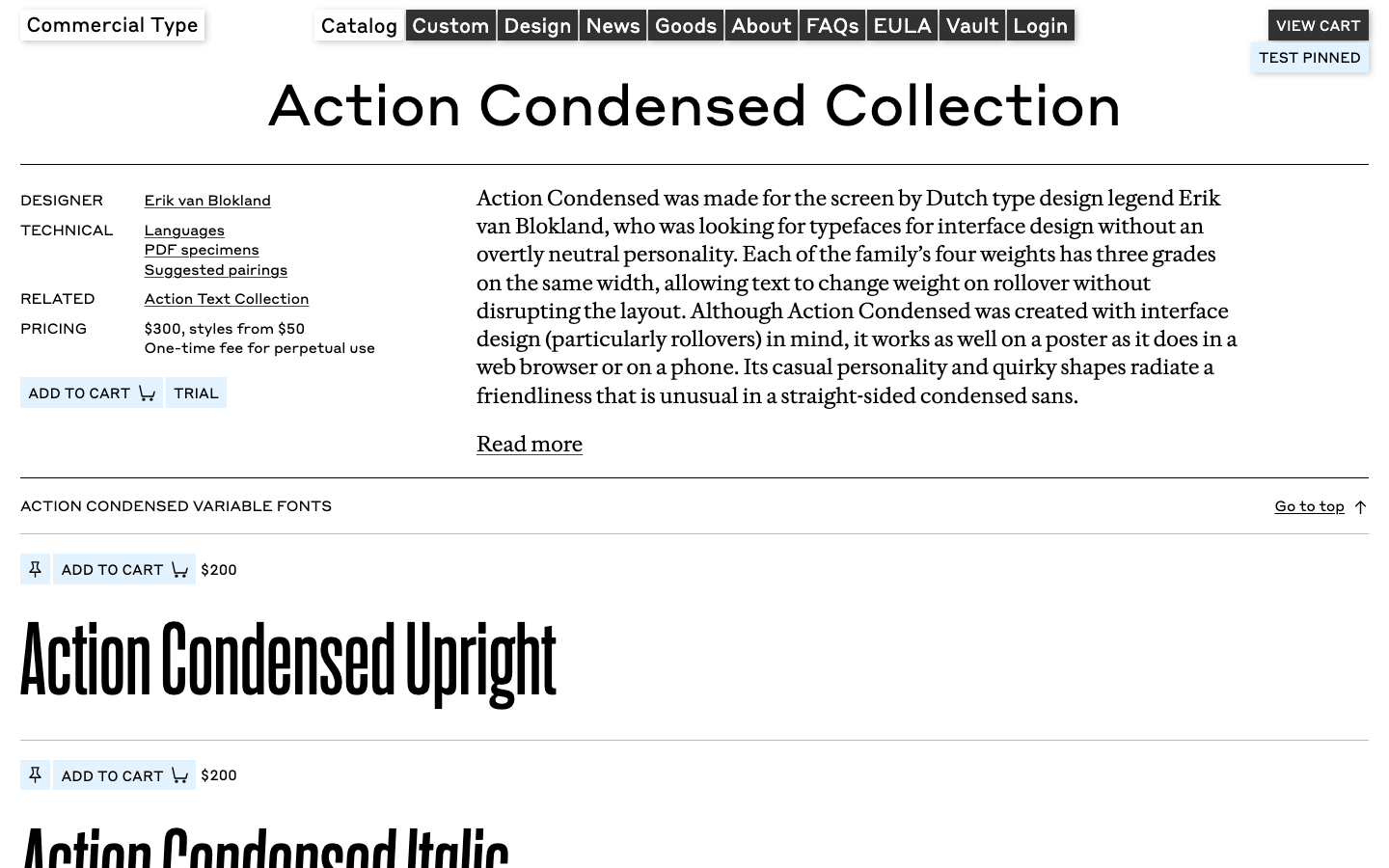
About Action Condensed
Action Condensed is a condensed sans-serif typeface from Commercial Type, designed by Erik van Blokland. The typeface is optimized for headline and display use in editorial and advertising contexts, where bold, space-efficient letterforms need to make an immediate visual impact within tight column widths.
History and Design
Erik van Blokland designed Action Condensed to serve the demanding requirements of editorial headline typography. The typeface reflects Commercial Type's focus on creating fonts that solve specific design problems with character and precision. Action Condensed addresses the need for a condensed display face with enough personality to stand out while remaining versatile enough for diverse editorial contexts.
The design features tightly controlled proportions that maximize text density without sacrificing the optical balance needed for comfortable reading at headline sizes. The letterforms carry a sense of urgency and directness that suits news, sports, and lifestyle editorial content.
Technical Characteristics
- Tight condensed proportions: Maximum character density for headline efficiency
- Bold weight emphasis: Designed primarily for high-impact display use
- Editorial optimization: Proportions suited to newspaper and magazine column layouts
- Clean construction: Precise, controlled letterforms without unnecessary ornament
- Strong vertical stress: Condensed width creates assertive vertical rhythm
Use Cases
Action Condensed excels in impact-driven editorial contexts:
- Newspaper headlines: Bold, space-efficient type for front-page impact
- Sports editorial: Energetic display type for athletic and lifestyle content
- Magazine covers: Condensed headlines that fit large text into tight layouts
- Advertising display: Bold, direct messaging in campaign materials
- Digital news: Strong headline presence for online editorial platforms